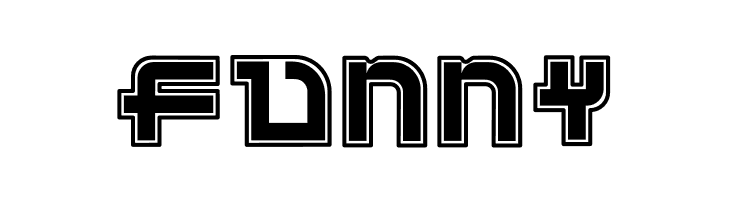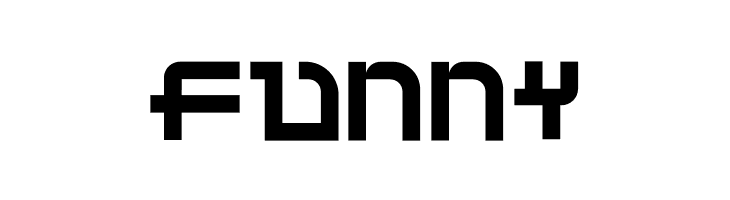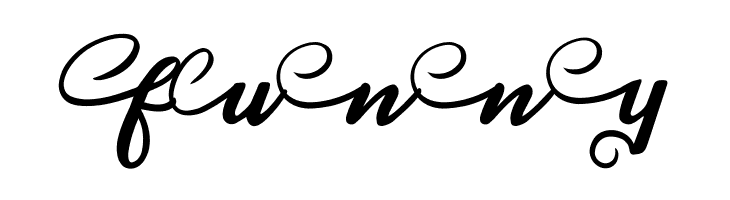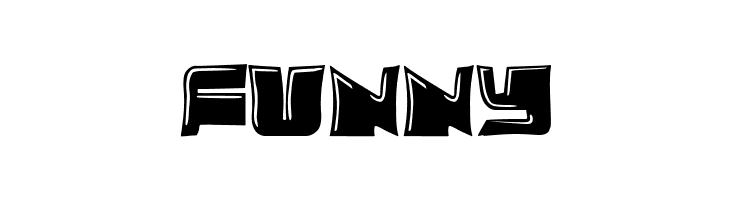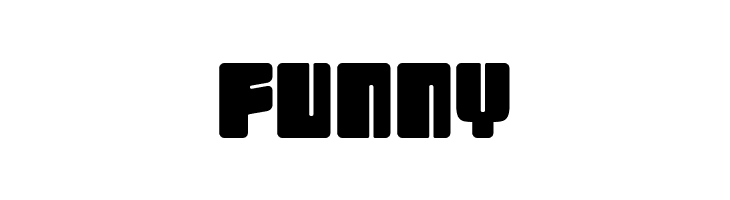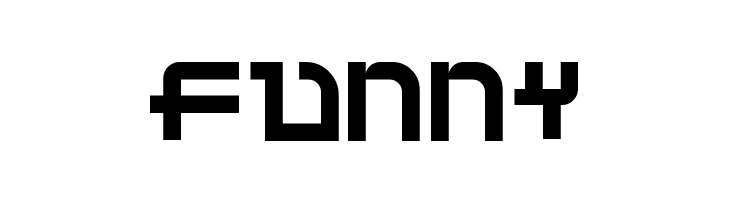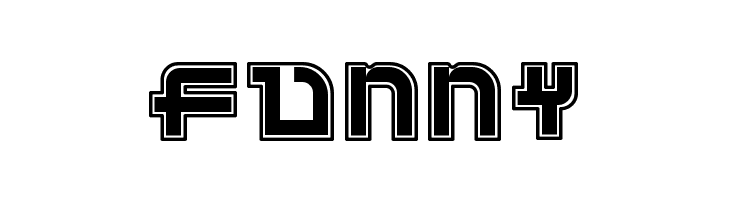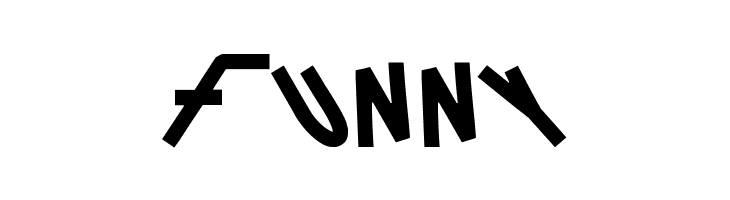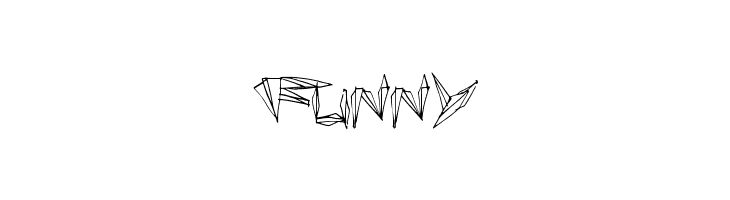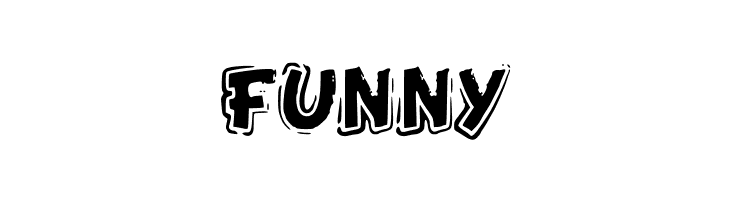
A playful, bold font with whimsical, decorative curls.
A bold, playful icon font with humorous pictograms in rounded squares.
A playful, bold font with rounded, cartoonish characters.
A playful, bold font with dynamic, sweeping strokes and a whimsical style.
A playful and whimsical font with bold, exaggerated serifs and lively curves.
A bold, geometric font with a futuristic and mechanical style.
A bold, geometric font with a striking outline and futuristic style.
A bold, geometric font with a striking outline and modern appeal.
A bold, geometric font with playful, modern design elements.
A playful, bold, and rounded hand-drawn font with a whimsical style.
A fun dingbat font of cartoon monster and toy illustrations.
A playful, bold font with thick, blocky letters and a whimsical, hand-drawn feel.
A whimsical, hand-drawn font with a magical, gothic flair.
A humorous, hand-drawn cartoon character set with playful and exaggerated styles.
A playful, bold font with a cartoonish, hand-drawn style and shadow effect.
A playful, bold font with a cartoonish style and shadow effect.
A playful, hand-drawn font with a whimsical and friendly style.
A bold, whimsical typeface with a playful, hand-drawn style.
A bold, playful font with cartoonish, exaggerated characters.
A bold, playful font with a distressed, grunge-like texture.
A playful, distressed font with jagged edges and a bold appearance.
A geometric, origami-inspired font with sharp angles and a modern, artistic style.
A modern, geometric font with a futuristic and symmetrical design.
A bold, dripping font with a dramatic and eerie style.
A lively and dynamic script font with elegant curves and bold strokes.
A playful, hand-drawn font with a bold, textured style.
A bold, blocky font with a playful, retro-modern style.
A dynamic and expressive script font with fluid, flowing letterforms.
A bold, slanted font with dynamic and playful characteristics.
A bold, distorted font with a playful and energetic style.
A playful, dynamic font with bold, slanted characters and a sense of movement.
A graceful script font with flowing, connected letters and elegant flourishes.